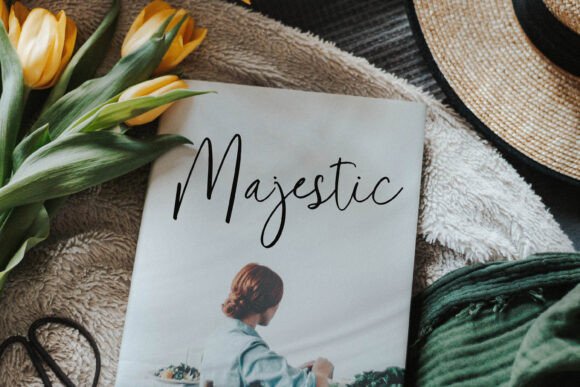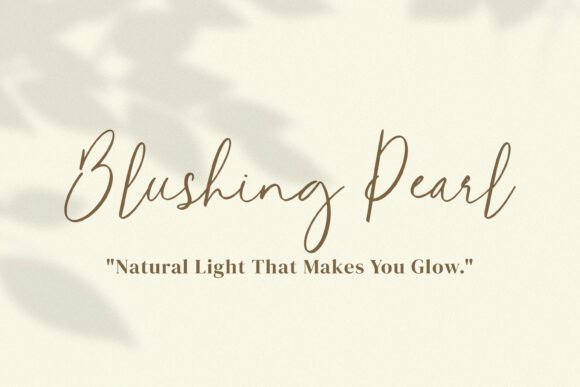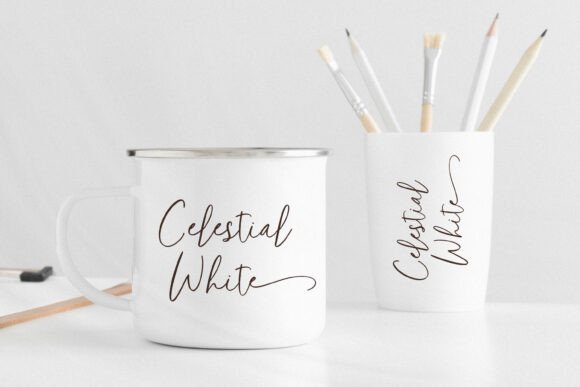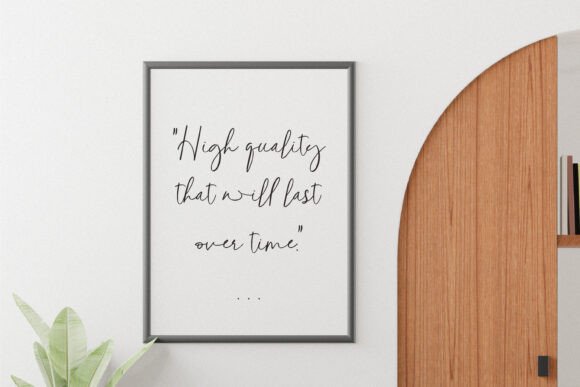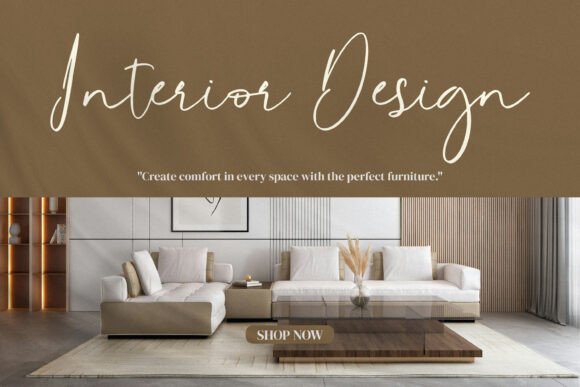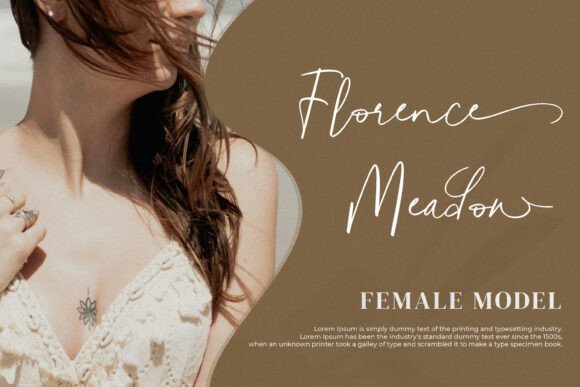
The Perfect Touch of Elegance: Discovering the Bellanche Font
Have you ever been working on a design project and felt like something was missing – that special touch that would elevate your creation from good to great? It’s a moment we’ve all experienced, and it’s precisely when we start searching for the perfect font to bring our vision to life.
Enter the Bellanche Font, a stunning modern signature font designed to add a personal and professional touch to your designs. With its smooth, elegant strokes and handwritten look, it’s perfect for logos, invitations, branding, and social media posts. Whether you’re a seasoned designer or just starting out, the Bellanche Font is an invaluable asset that will take your projects to the next level.
Bellanche Font Key Features
- Font Family: Bellanche
- Unique Characteristics: Bellanche is a modern, elegant script font with intricate details, ideal for creating beautiful, high-end designs
Bellanche Font Review
I recently had the chance to work with the Bellanche font, and I must say it’s a unique and stylish choice. ✨ The font’s elegant curves and refined lines give it a sophisticated feel, making it perfect for high-end branding and luxury designs.
- ✨ Elegant and refined lines make it suitable for high-end branding and luxury designs.
- ✨ The font’s curves add a touch of sophistication, perfect for fashion, beauty, or travel-related projects.
- ✨ Great for creating eye-catching headlines and titles.
However, I did notice a few limitations. ⚠️ The font can be a bit too ornate for some projects, making it difficult to read in smaller sizes or at a glance. Additionally, some letters may not be as legible as others, which could be a concern for longer blocks of text.
Overall, I think the Bellanche font is a great choice for designers who want to add a touch of luxury and sophistication to their designs. While it may not be suitable for every project, it’s definitely worth considering for high-end branding and visual identity projects.
The Bellanche font is ideal for creating elegant and sophisticated designs. Some common use cases include:
- High-end business cards and marketing materials
- Formal event signage and displays
Remember to use the Bellanche font in conjunction with other elegant design elements to create a cohesive and sophisticated look.
Alternatives to Bellanche Font for Designers
Oswald is a sans-serif font that is known for its clean and modern look. It is ideal for use in headlines, titles, and other text where a bold and eye-catching font is desired. Oswald is a great alternative to Bellanche Font as it has a similar bold and condensed feel, but with a more geometric and modern aesthetic.
Comparison to Bellanche Font: Oswald is more condensed and geometric in shape, giving it a more modern feel. It is also more versatile and can be used in a wider range of applications.
Montserrat is a sans-serif font that is inspired by the urban landscape of Buenos Aires. It is ideal for use in body text, paragraphs, and other text where a clean and readable font is desired. Montserrat is a great alternative to Bellanche Font as it has a similar urban and modern feel, but with a more open and airy aesthetic.
Comparison to Bellanche Font: Montserrat is more open and airy in shape, giving it a more relaxed feel. It is also more versatile and can be used in a wider range of applications.
Playfair Display is a serif font that is known for its elegant and luxurious look. It is ideal for use in headlines, titles, and other text where a sophisticated and refined font is desired. Playfair Display is a great alternative to Bellanche Font as it has a similar luxurious and elegant feel, but with a more traditional and classic aesthetic.
Q: Is Bellanche a monoline font?
No, Bellanche is not a monoline font. It features varying line widths, which add to its classic and elegant feel. However, it does have a consistent x-height, making it easy to read and use in body text.